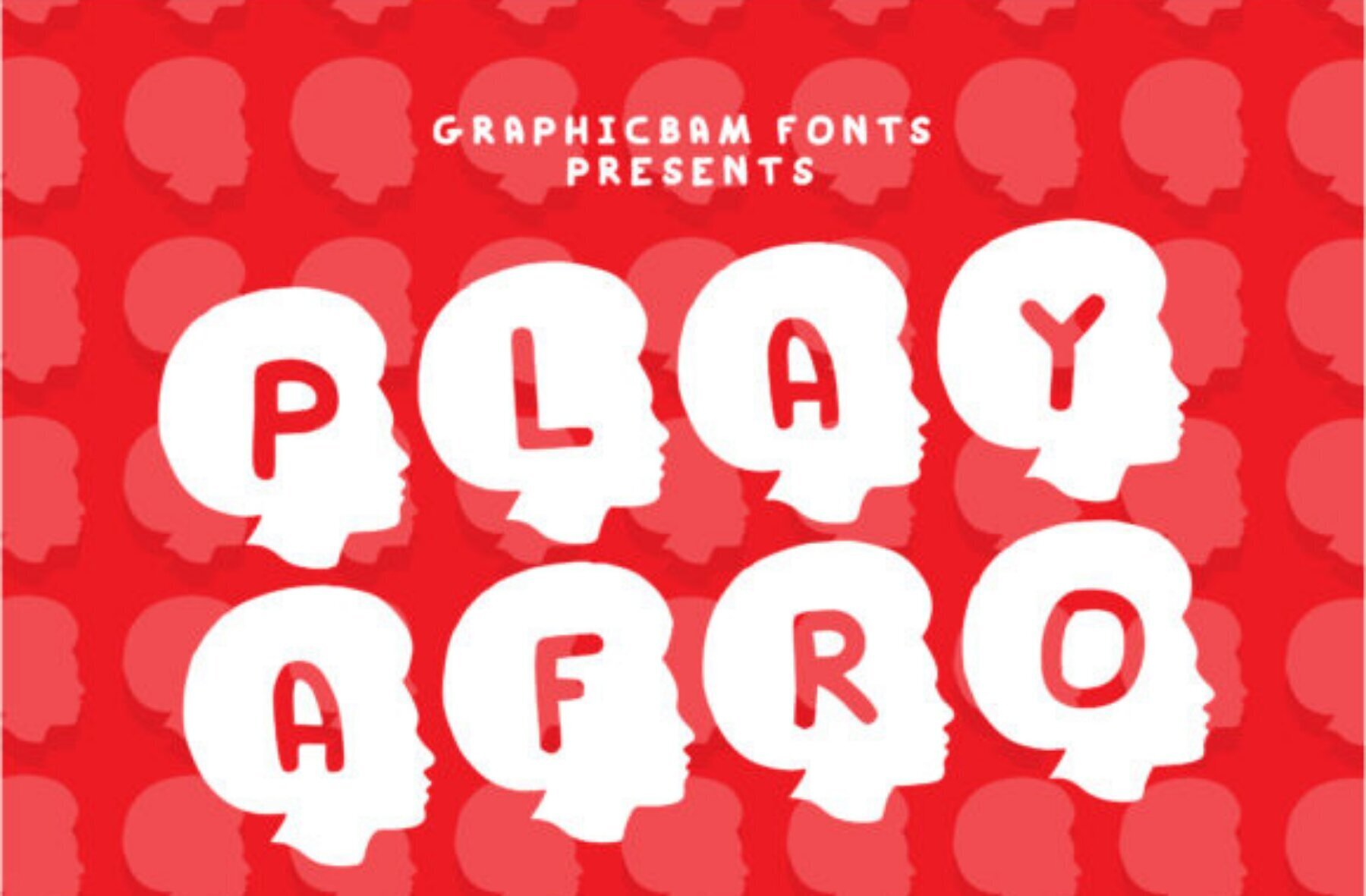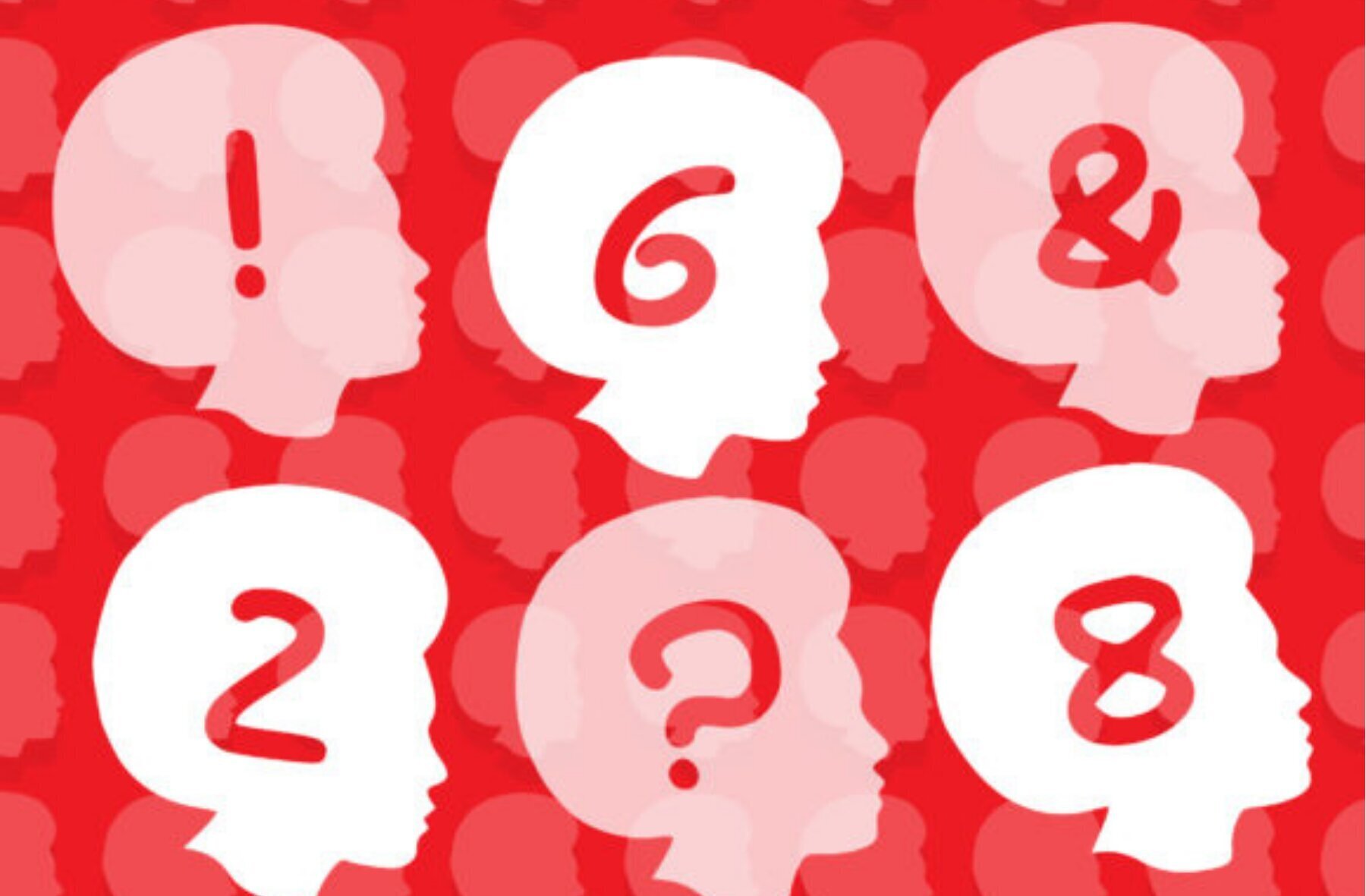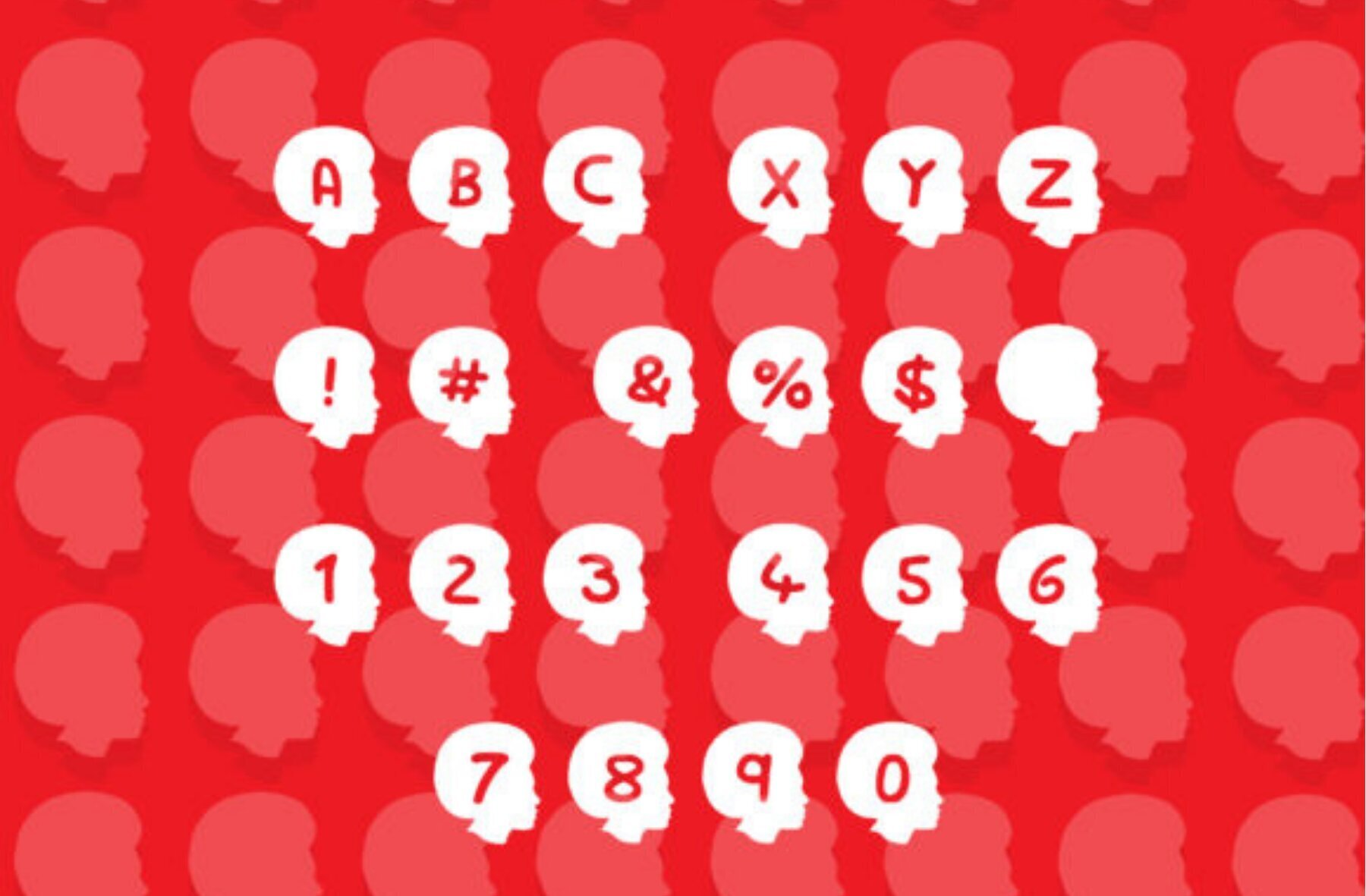
Play Afro Font
Play Afro Regular
Discover the playful and distinctive style of Play Afro, a decorative font that brings a unique twist to your projects. Each character is adorned with a stylish afro, offering a fun and eye-catching detail that will add character to any design. Whether you're working on a party invitation, a poster, or a creative presentation, this font is sure to become a valuable addition to your typography collection.Play Afro Font